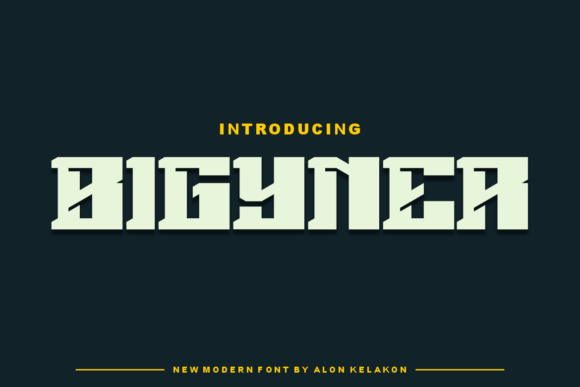
The Bigyner Font: A Bold and Unique Slab Serif for Your Creative Projects
I’ll never forget the time I was working on a project for a client who wanted a bold, eye-catching font to label their new product line. I scoured the internet for hours, trying to find the perfect font, but nothing seemed quite right. That was until I stumbled upon the Bigyner font. With its unique slab serif design, it was love at first sight! In this article, I’ll share my experience with Bigyner, its features, and how to make the most of it in your creative projects.
An Honest Review of Bigyner Font
What I Love About Bigyner ✨
- 💥 Bold and attention-grabbing: Bigyner is perfect for making a statement with your designs.
- 🎨 Unique slab serif design: Its distinctive style sets it apart from other fonts and adds a touch of personality to your work.
- 🤝 Versatile: Bigyner can be used for a wide range of projects, from labeling and clothing to movie screens and album covers.
- ✅ Easy to read: Despite its bold design, Bigyner remains clear and legible, even at smaller sizes.
While Bigyner is an excellent font, it’s not without its limitations. For example:
- ⚠️ Limited use for body text: Due to its bold design, Bigyner may not be the best choice for longer blocks of text.
- ⚠️ May not be suitable for very small sizes: Bigyner’s bold lines and serifs can become distorted or lost at very small sizes.
The Backstory of Bigyner Font
Bigyner was designed with the goal of creating a bold and eye-catching font that’s perfect for making a statement. Its unique slab serif design is inspired by classic typography, but with a modern twist. Whether you’re a designer, crafter, or creative hobbyist, Bigyner is sure to become a favorite in your font collection.
Q: What is the best use for Bigyner font?
A: Bigyner is perfect for bold and eye-catching designs, such as labeling, clothing, movie screens, and album covers.
Q: Can I use Bigyner for body text?
A: While Bigyner is easy to read, its bold design may not be the best choice for longer blocks of text.